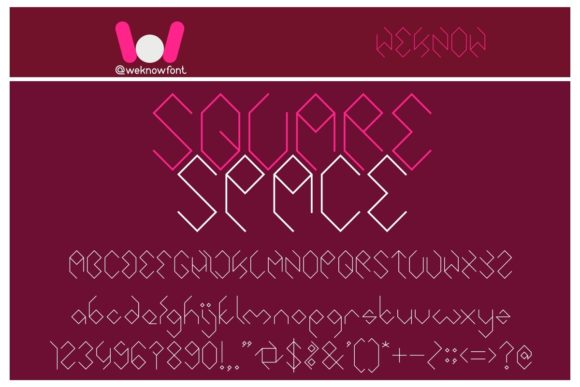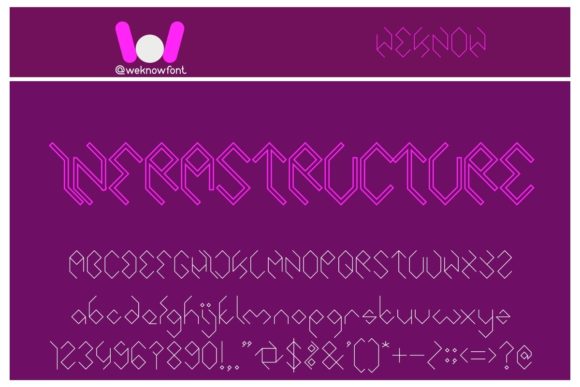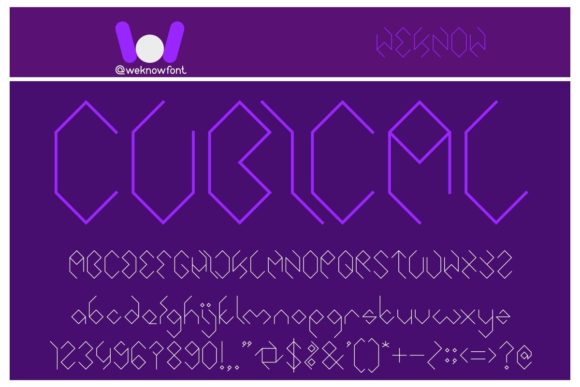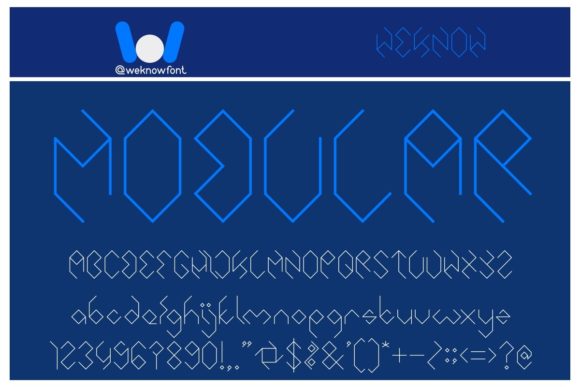
Introduction to Inside the Box Font
Inside the Box is a geometric styled and cool display font.
It works incredibly well on a variety of designs, such as logos, branding, labels and so much more .